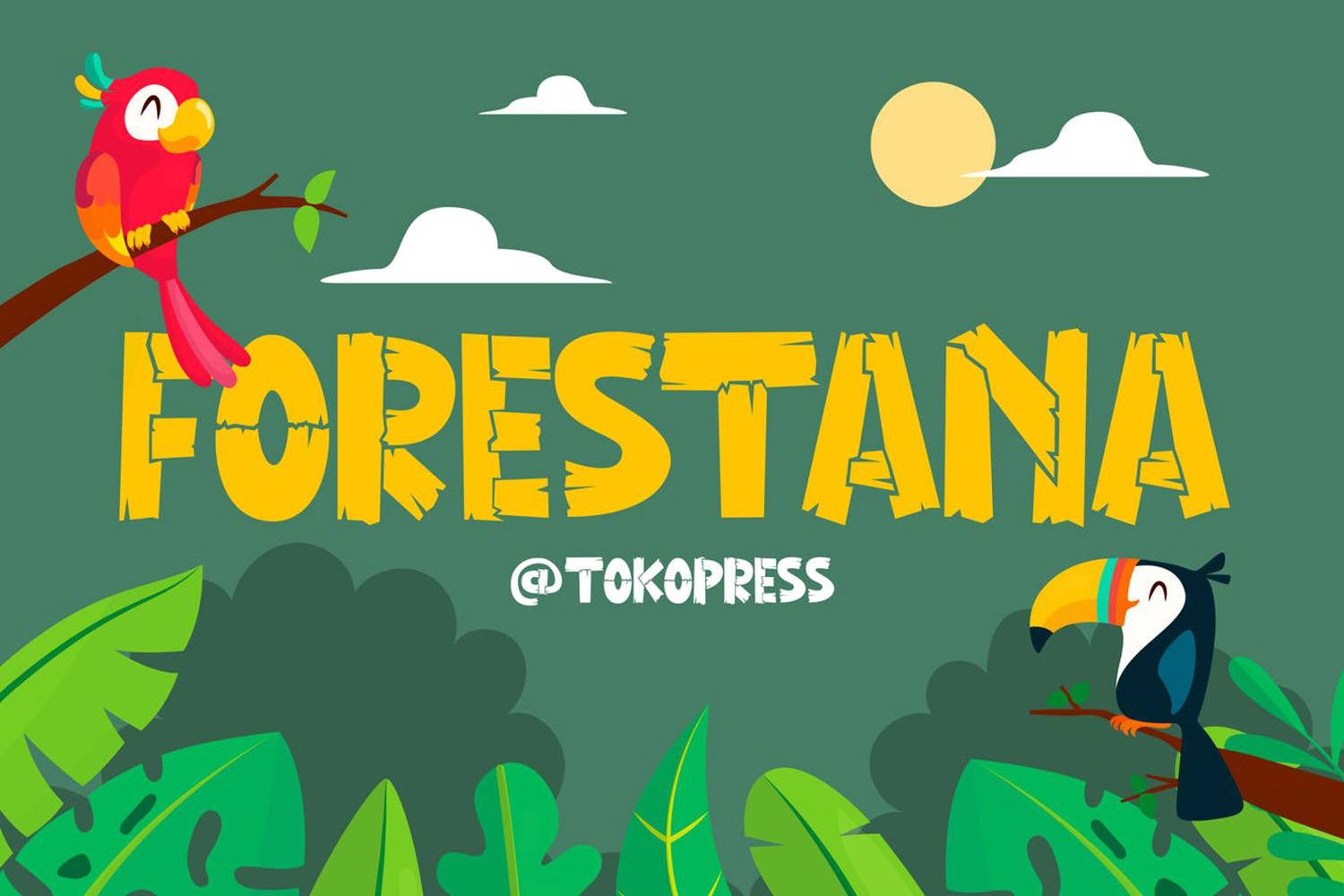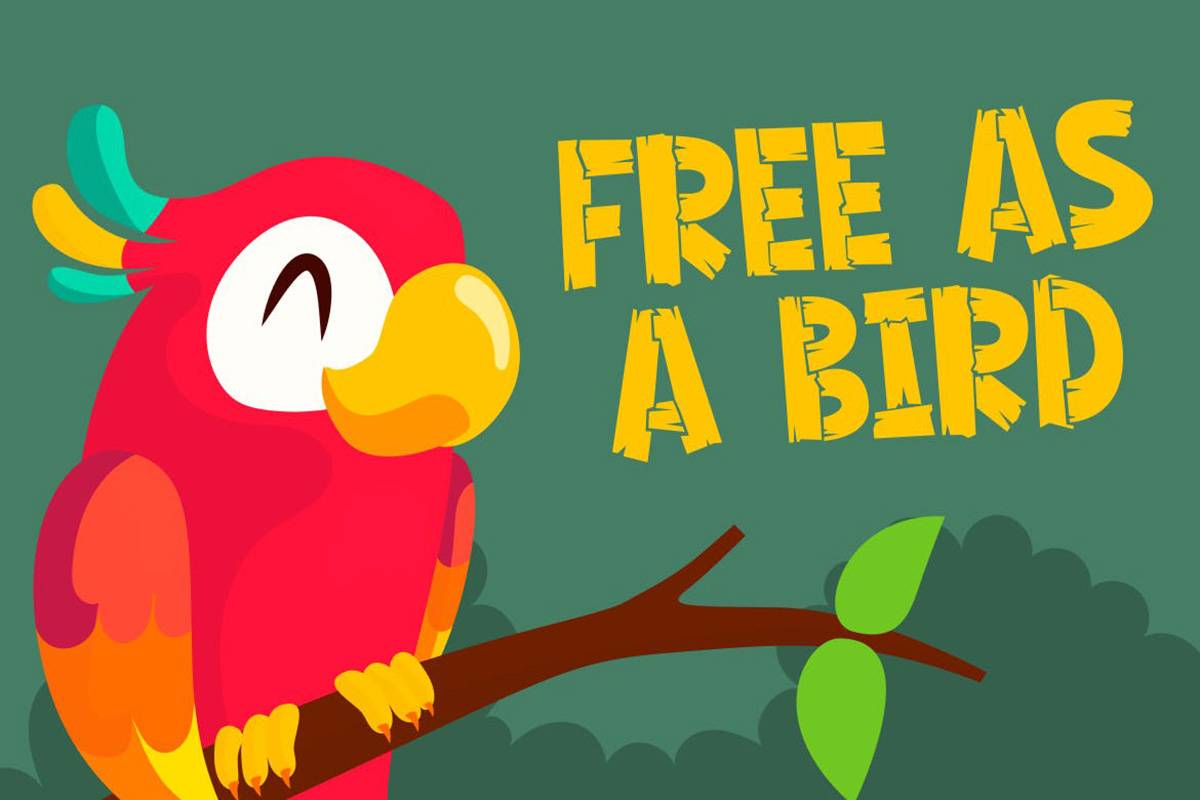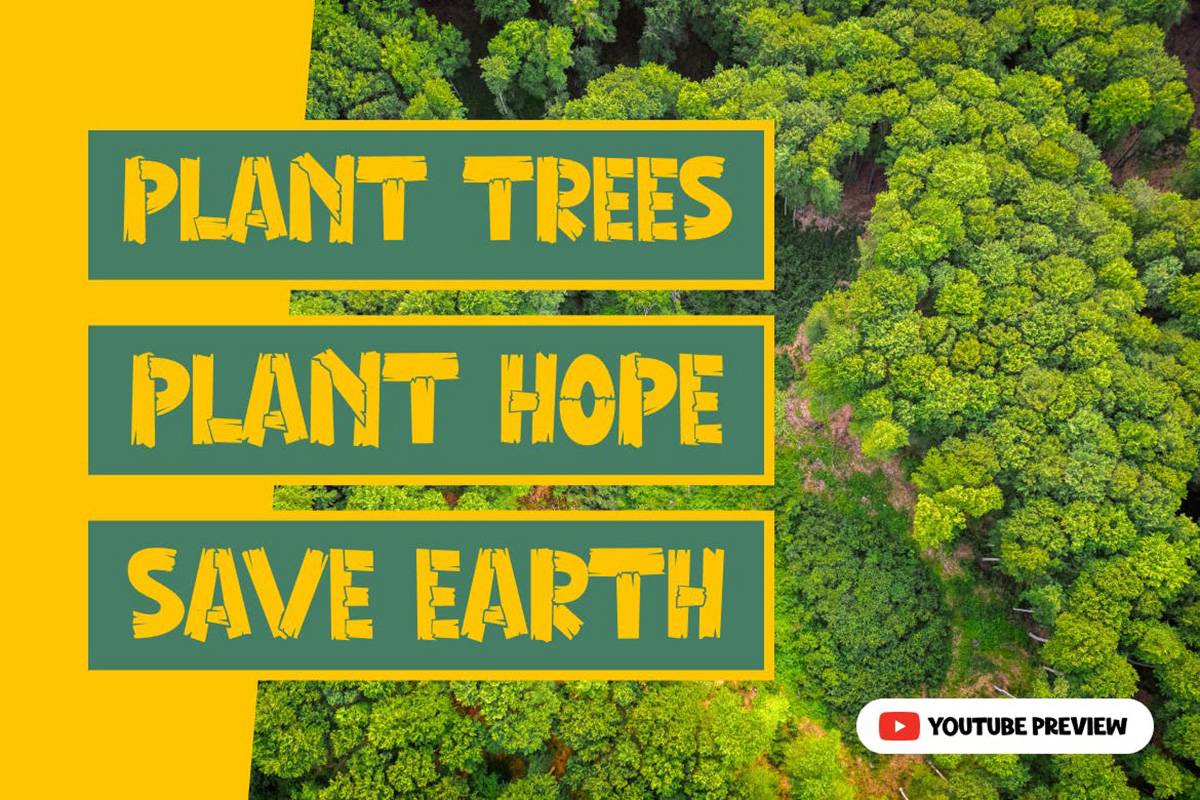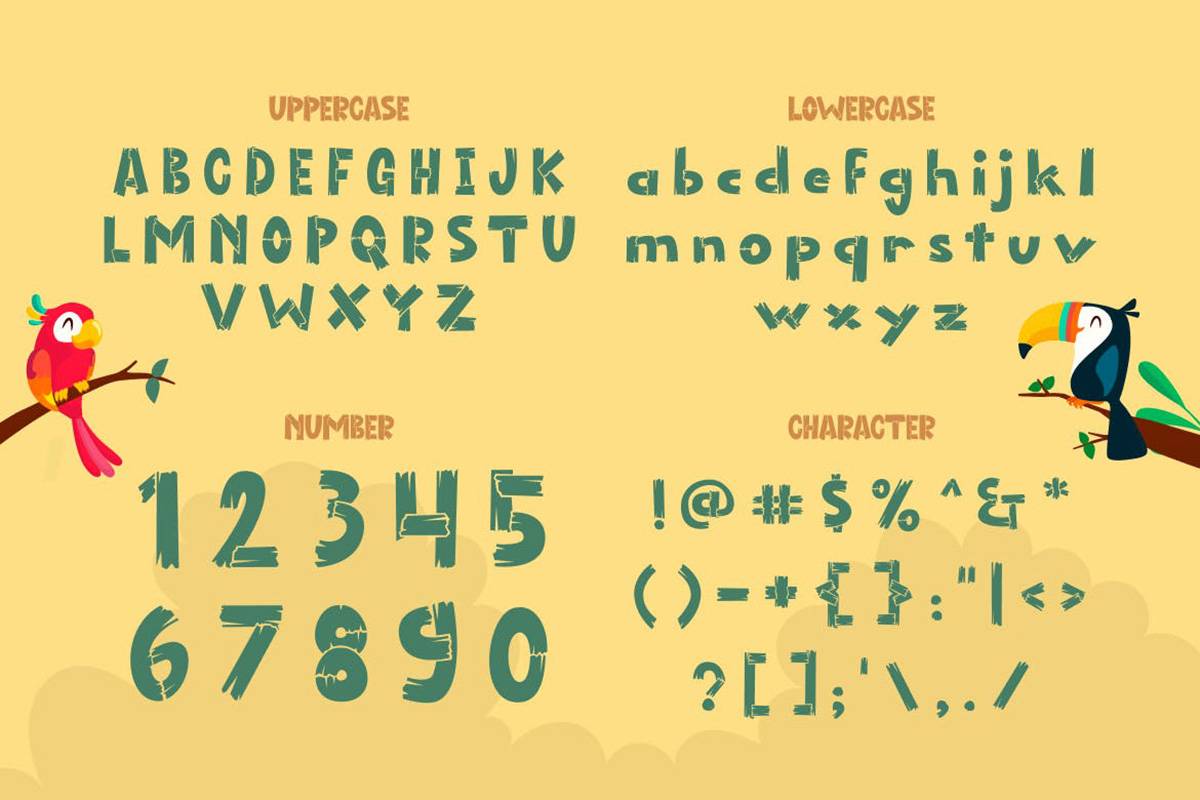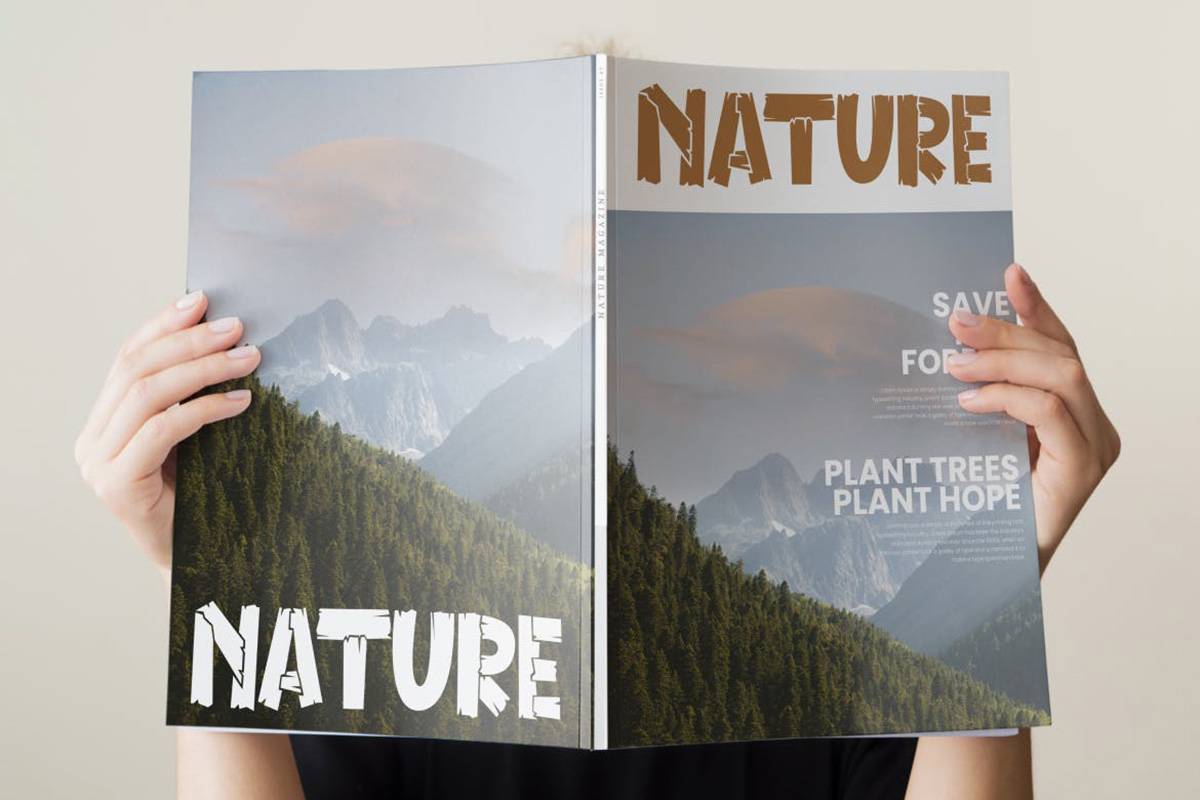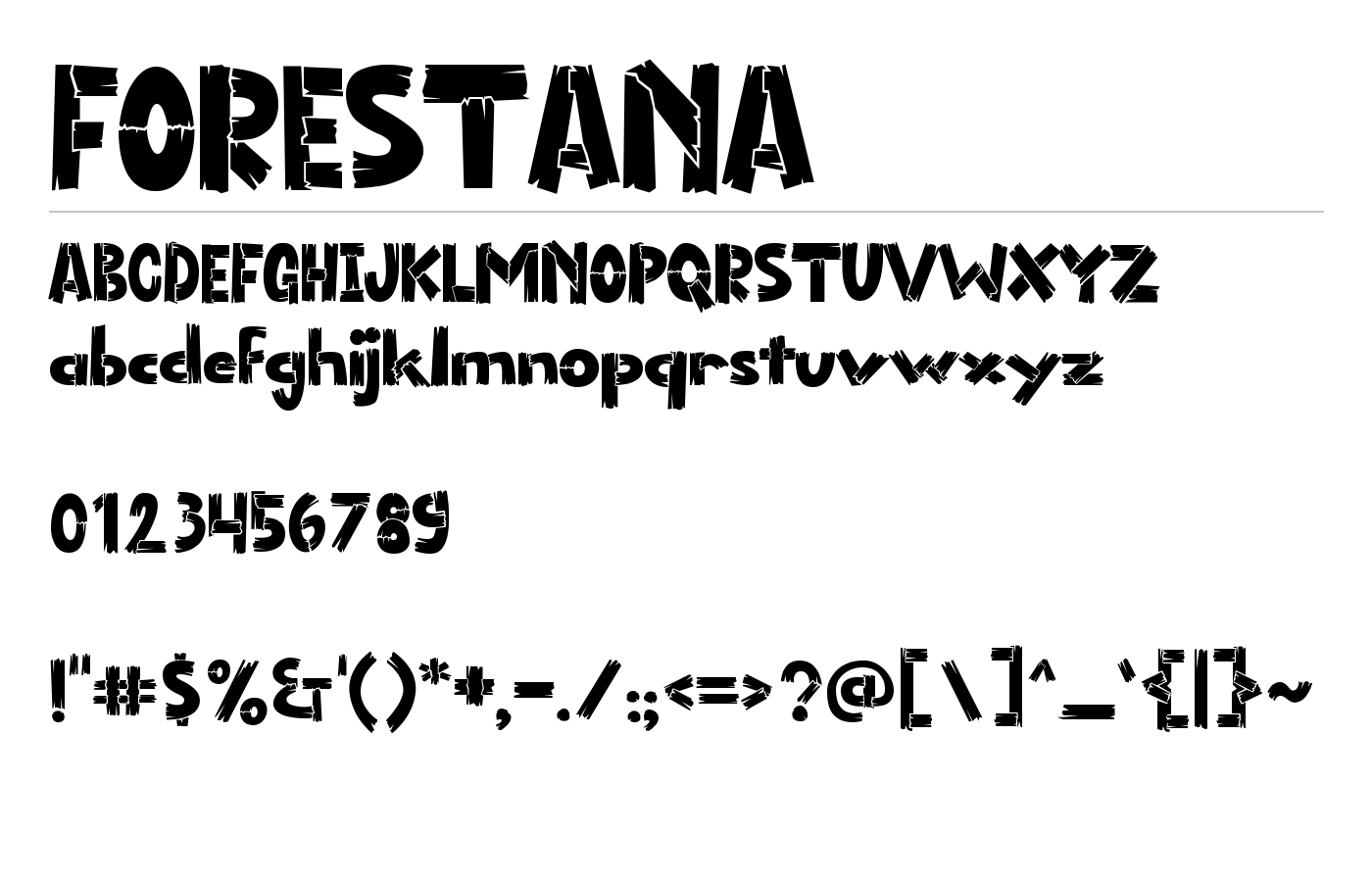
Forestana is a bold, playful sans serif font with a rugged, distressed texture that gives it a natural, handmade feel. Its chunky letterforms, irregular edges, and lively character make it perfect for eye-catching headlines, logos, or designs related to outdoor, adventure, or craft themes. This font works well when you want to add a fun and energetic vibe while maintaining strong readability.
| Font family | Forestana Font |
| Designer | Tokopress Team |